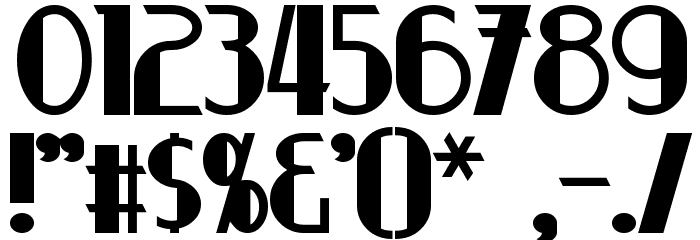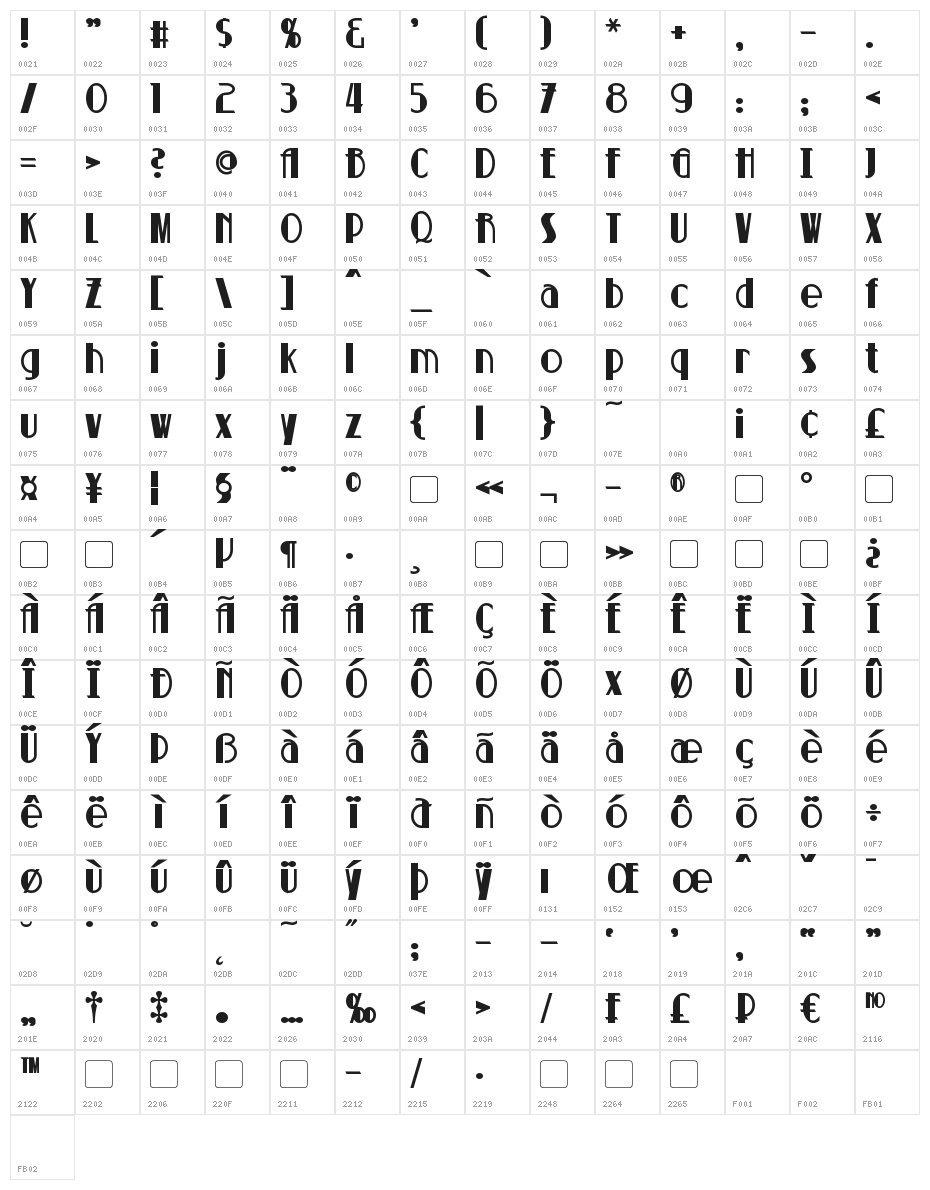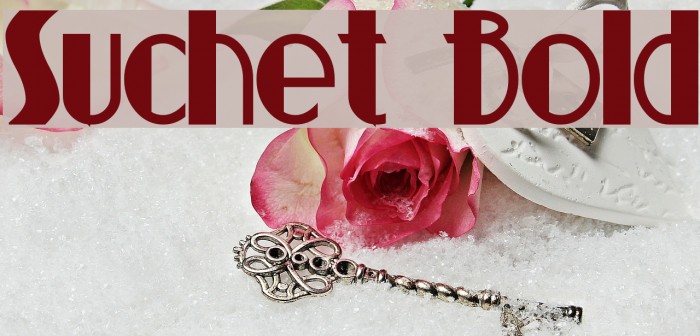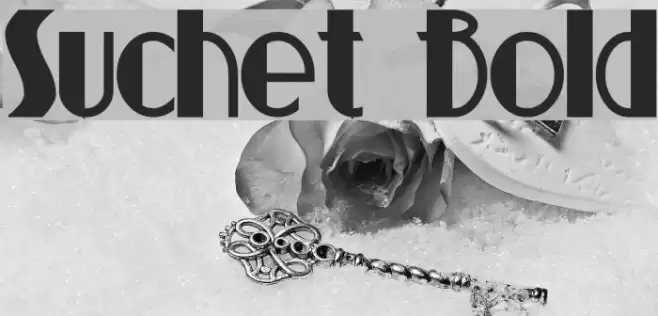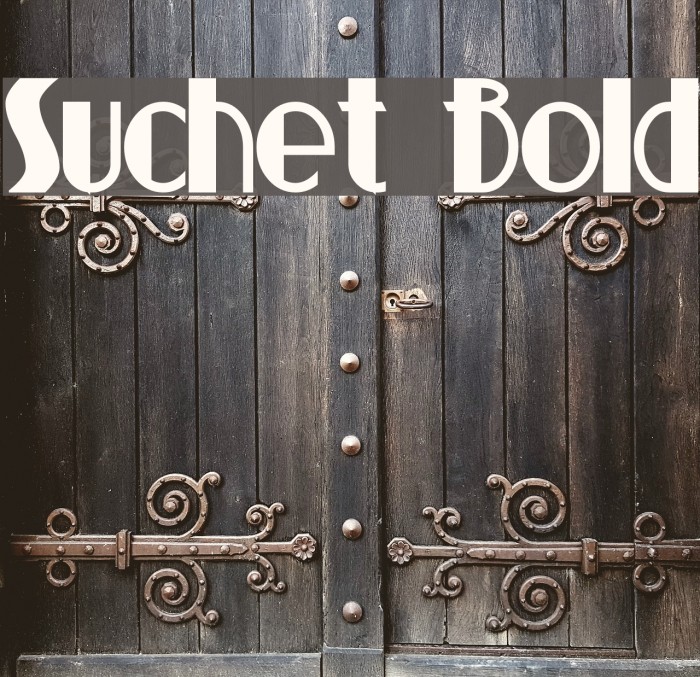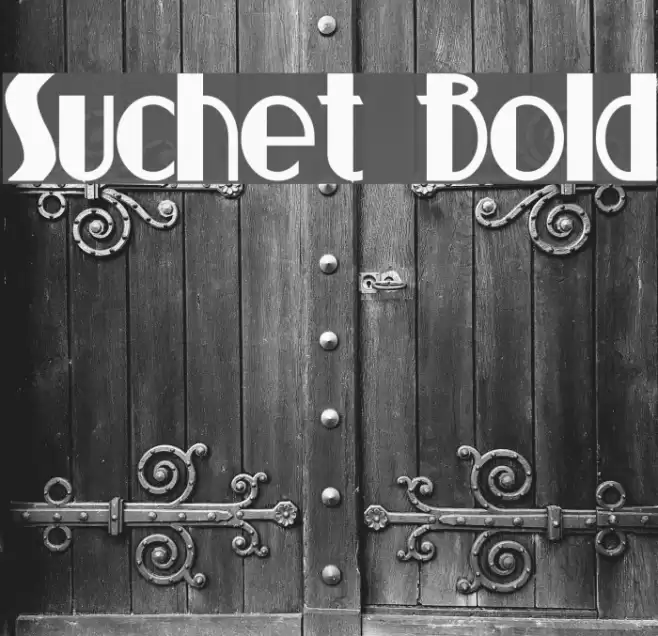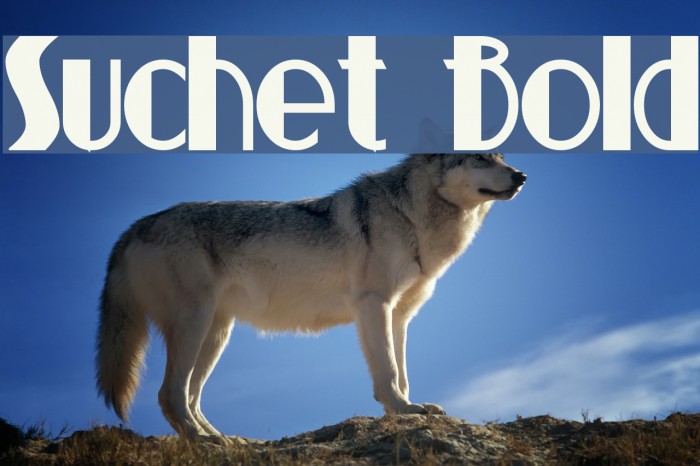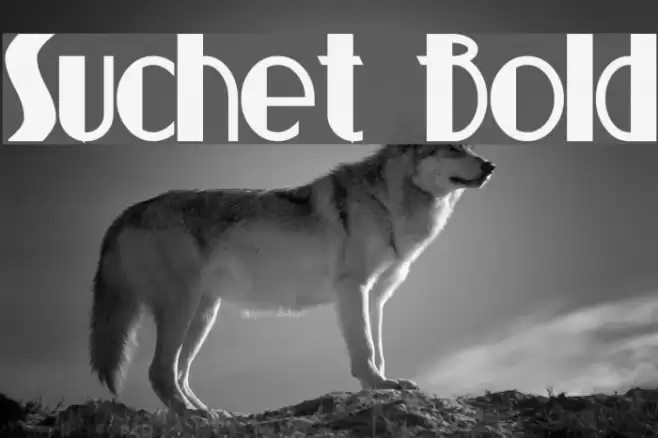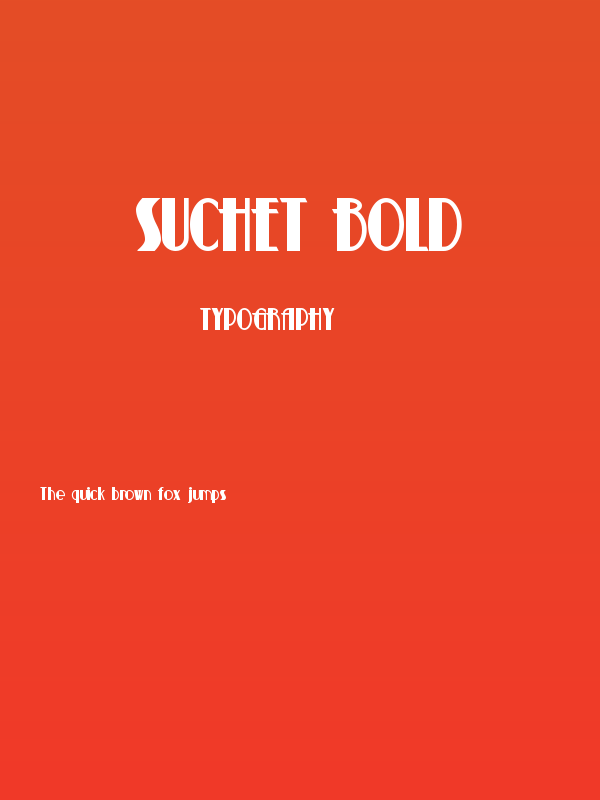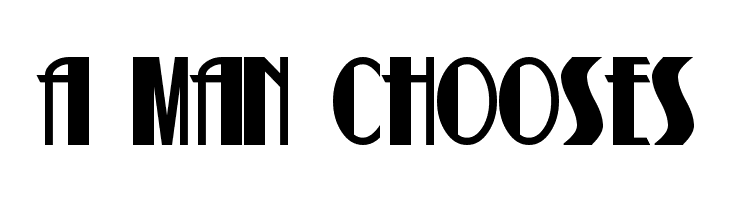
Suchet Bold Font
Suchet Bold Description
This font features a bold and striking design with a strong geometric influence. The characters are constructed with a combination of thick vertical and thin horizontal strokes, creating a high contrast that enhances readability while maintaining a modern aesthetic. The uppercase letters are particularly distinctive, with unique shapes that add a touch of flair. The lowercase letters maintain a consistent style, complementing the uppercase set. Numerals and special characters are designed to match the boldness and geometric nature of the alphabet, ensuring a cohesive look across all text. This font is ideal for making a statement in any design project.